Best Fonts to Ink Bible Verses
Choosing the right tattoo font for Bible verses can transform how sacred text is expressed on skin. From elegant script to bold block letters, each style carries meaning and emotion. A well-chosen font enhances the spiritual impact of the verse, making it more personal and powerful. Whether you’re inked for faith, memory, or devotion, the right font brings the words to life. Consider how the style reflects your journey and beliefs. Tattoo Font Bible offers a curated selection of styles that honor both design and devotion.
Fonts matter—great Bible verse tattoos need a style that matches the message. Clean, flowing script or strong sans-serif can deepen the spiritual feel.
Match the font to the verse’s tone—serene, bold, or ancient—to make your Bible tattoo truly meaningful.
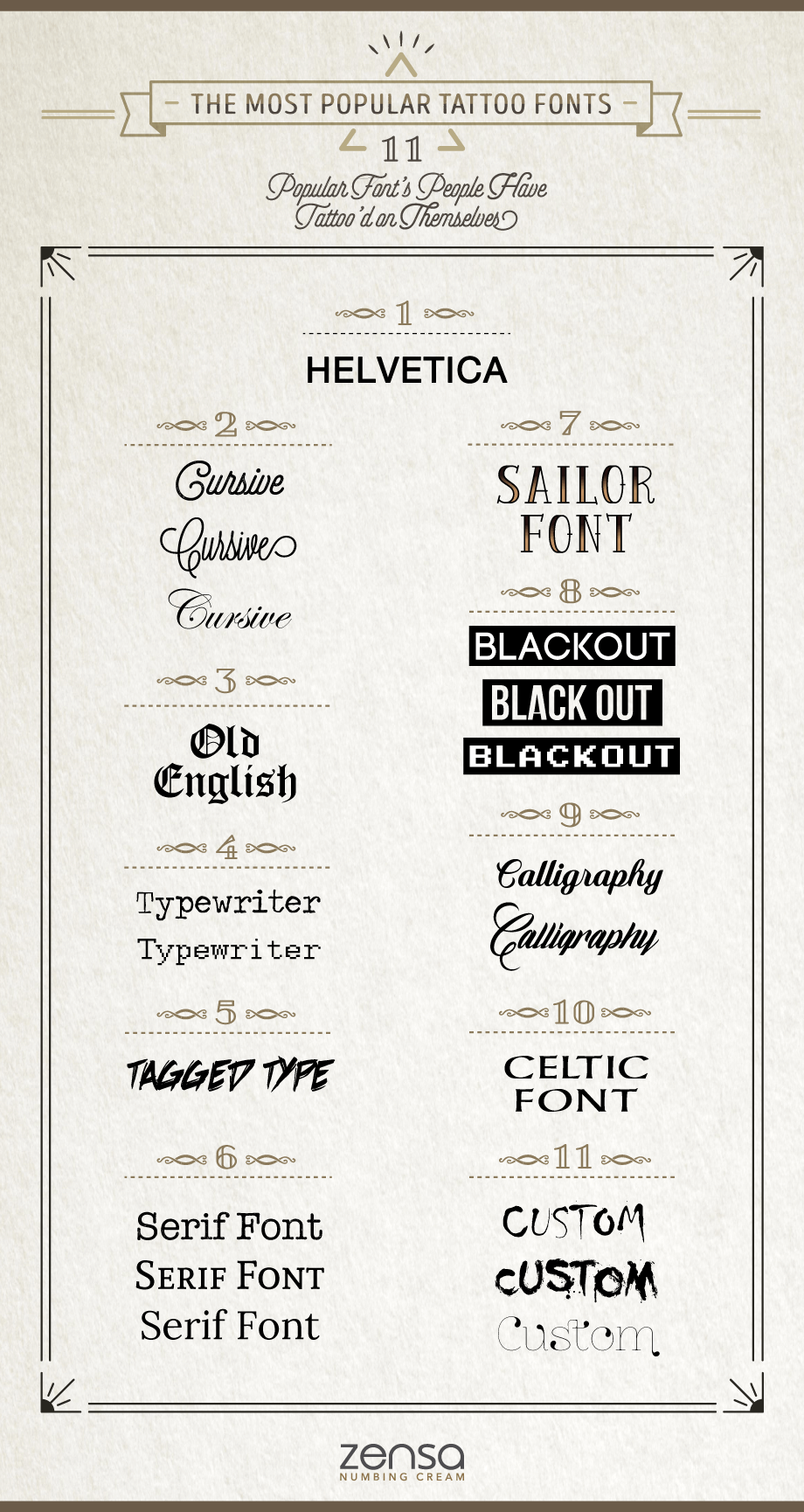
Beautiful Fonts to Ink Bible Verses
Choosing the right tattoo fonts for Bible verses can transform how deeply a verse resonates. Whether you’re going for elegant script or bold block letters, the right font helps bring scripture to life. From classic cursive to modern sans-serif, each style carries a different spiritual tone. Pairing these with temporary Christian tattoos or using a Bible verse acronym can make memorization easier and more meaningful—perfect for daily reflection or personal devotion.
Font choice matters—cursive flows like prayer, while bold styles cut through the noise. For Bible verses, pairing tattoo fonts with a simple acronym helps you remember key messages quickly.
Simple, clean fonts work well for short verses, making them easier to read and recall—ideal for daily reminders or personal worship.
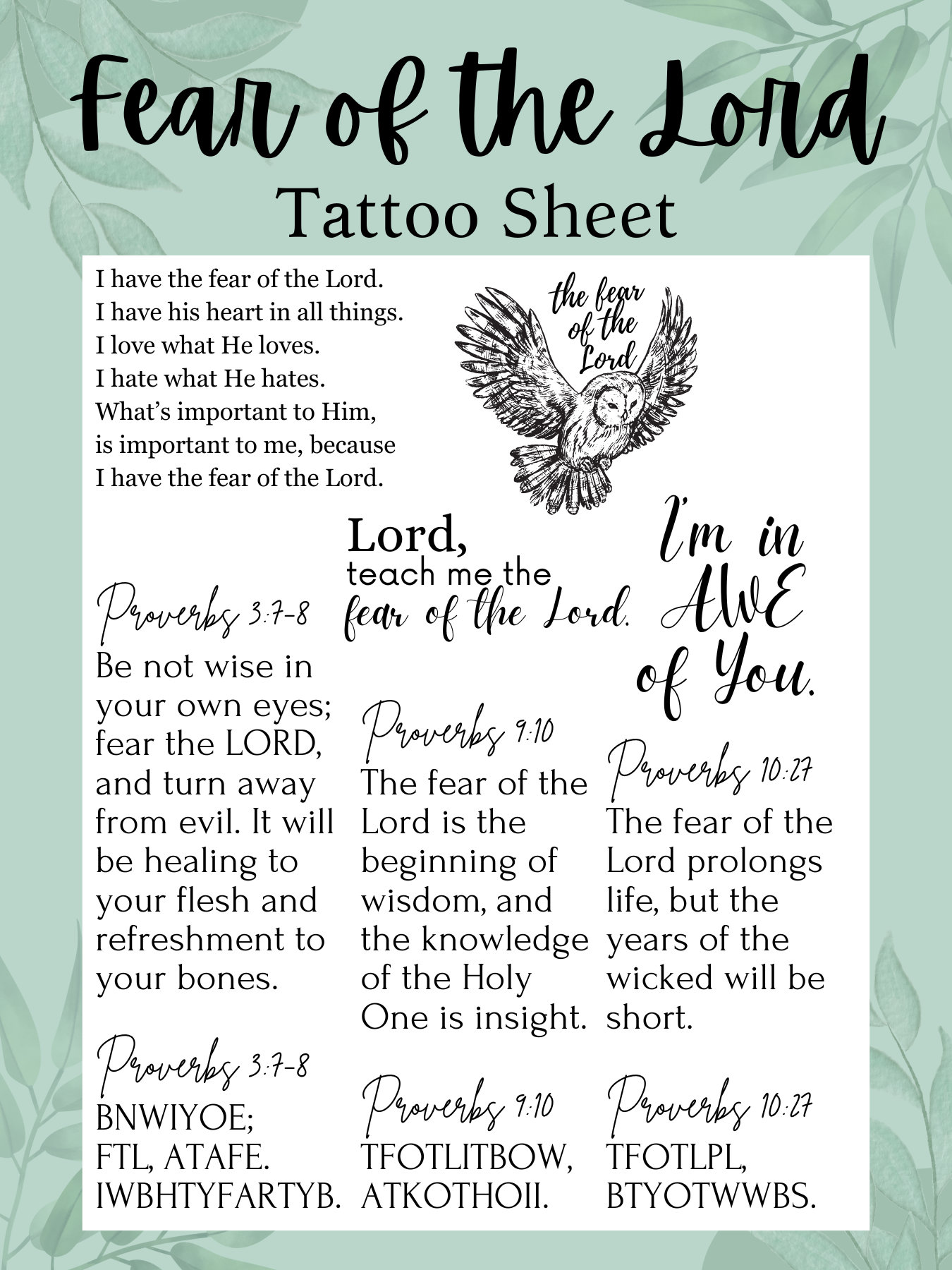
Unique Fonts for Bible Verse Tattoos
Looking for a bold, personal touch with your Bible verse tattoo? Try unconventional fonts that bring depth and meaning to scripture—perfect for men who want their ink to speak volumes. From script to modern sans-serif, these styles blend faith and artistry. Check out more inspiring designs at bible verse tattoos for guys.
Choose fonts that match your personality—some bold, some elegant—so your verse stands out without losing its spiritual weight.
Pair meaningful scripture with striking typography to create a tattoo that’s both timeless and true to who you are. Explore more font ideas at best tattoo fonts for quotes.
Best Fonts for Bible Verse Tattoos
Choosing the right tattoo fonts for Bible verses can transform how your scripture feels on skin—blending elegance, strength, and personal meaning. From classic serif to modern sans-serif, each font carries a different tone, making it easier to match your spiritual message with your design style. Whether you’re going for a bold, timeless look or something subtle and reflective, the right font elevates the entire tattoo. Bible Phrase Tattoosfav Events Inspirational Verse Tattoos + … offer a rich palette of ideas to inspire your next design.
Simple, clean fonts work well for short Bible verses, making them easy to read and impactful. They bring a sense of clarity and devotion to your tattoo.
Script-style fonts add a touch of elegance and reverence—perfect for deeper, more reflective verses.
Tattoo Fonts That Bring Bible Verses to Life
Looking for bold, meaningful tattoo fonts that perfectly capture the spirit of Bible verses? These elegant and powerful typefaces blend faith with artistry, making each verse a lasting tribute. Whether you’re going for classic serif elegance or modern sans-serif strength, there’s a font that speaks directly to your soul. Inspired by the timeless beauty of Wall Praise Fonts, these designs ensure your message stands out with clarity and depth.
Choose fonts that match your verse’s tone—serif for reverence, bold sans for strength. Perfect for those who want their Bible verses to feel both personal and powerful.
Fonts that honor scripture and stand out on skin. Ideal for verses that carry deep spiritual meaning.
Tattoo Fonts That Bring Bible Verses to Life
Choosing the right tattoo fonts for Bible verses can transform a simple phrase into a powerful, personal statement. Whether you’re going for classic script or bold modern styles, the font choice shapes how the words resonate. For those drawn to meaningful leg tattoos, Bible Verse Leg Tattoos offer a striking way to carry faith with you every day—simple, elegant, and deeply symbolic.
Fonts set the tone for your Bible verse tattoo, making a huge difference in how it feels and looks. A flowing script can feel spiritual, while bold sans-serif adds strength and clarity.
Pairing the right font with a meaningful verse turns a leg tattoo into a personal declaration of faith.
Beautiful Bible Verse Tattoos You Can Try
Looking for meaningful, elegant ways to express your faith? Try tattoo fonts for Bible verses that blend timeless scripture with modern design. Whether you’re a seasoned believer or just starting out, these stylish temporary tattoos offer a fresh way to carry inspiration with you—perfect for adults and kids alike. Sheet Christian & Inspirational Bible Quotes Temporary Tattoos for Adults & Kids brings faith to life through simple, impactful designs.
Fonts matter when it comes to Bible verse tattoos—some feel ancient, others modern and clean. A well-chosen style helps the message stand out and resonate.
Think about how the font reflects your personal faith journey when selecting one for your verse.